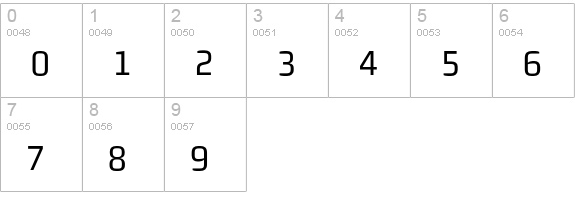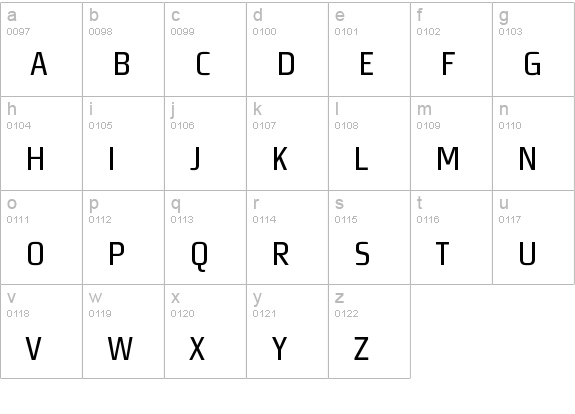
MorganSansCond RegularCaps font is a sleek and modern typeface that exudes sophistication and elegance. With its clean lines and stylish design, this font is perfect for adding a touch of class to any project. The uppercase letters are bold and eye-catching, making a strong statement wherever they are used. Whether you are designing a logo, creating a website, or working on a print project, MorganSansCond RegularCaps font is sure to make a memorable impression. The best part is that this font is free to download at FontsMarket.com, making it accessible to anyone looking to elevate their design work without breaking the bank. Don't miss out on the opportunity to enhance your projects with the timeless appeal of MorganSansCond RegularCaps font – download it today and see the difference it can make in your designs.